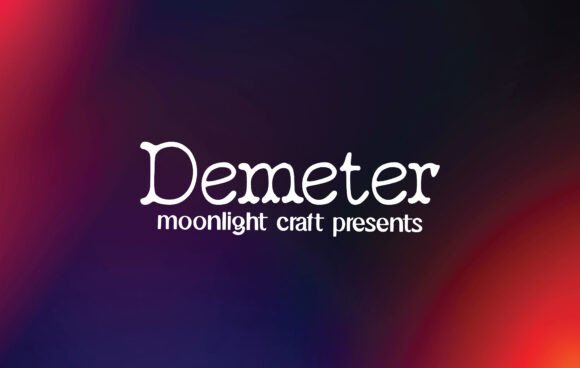
Discover the Elegance of Demeter Font: Elevate Your Designs with this Stunning Typeface
Are you a designer or crafter looking for a font that can take your creative projects to the next level? Look no further than the Demeter Font. This lovely and beautiful font is designed to help you create stunning visual content that captures the attention of your audience. With its elegant and sophisticated design, Demeter Font is the perfect choice for creating eye-catching logos, branding, and quotes that leave a lasting impression.
The Characteristics of Demeter Font
Demeter Font is a carefully crafted typeface that boasts a range of characteristics that make it ideal for creative projects. Its elegant lines, precise curves, and balanced proportions make it a joy to use for a wide range of design applications. Whether you’re creating a logo, a brochure, or a social media graphic, Demeter Font is sure to impress.
One of the standout features of Demeter Font is its versatility. It can be used for both digital and print projects, and its clear and legible design makes it perfect for body text as well as headings. Additionally, Demeter Font comes in a range of weights and styles, allowing you to tailor your design to suit your needs.
Why Choose Demeter Font?
So why should you choose Demeter Font for your next design project? Here are just a few reasons why this font stands out from the crowd:
- Elegant and sophisticated design: Demeter Font has a timeless elegance that will elevate your designs and give them a professional finish.
- Versatile: Use Demeter Font for a wide range of design applications, from logos and branding to quotes and social media graphics.
- Easy to read: Demeter Font is clear and legible, making it perfect for body text as well as headings.
- High-quality: Demeter Font is a high-quality font that is designed to produce crisp and clear results, even at small sizes.
How to Use Demeter Font in Your Designs
Using Demeter Font in your designs is easy. Here are a few tips to get you started:
- Pair it with other fonts: Demeter Font works well with a range of other fonts, so don’t be afraid to experiment with different pairings to find the one that works best for your design.
- Experiment with different weights and styles: Demeter Font comes in a range of weights and styles, so try out different variations to see which one works best for your design.
- Use it for headings and titles: Demeter Font is perfect for headings and titles, where its elegant design can really shine.
In conclusion, Demeter Font is a stunning typeface that is sure to elevate your designs and take your creative projects to the next level. With its elegant and sophisticated design, versatility, and ease of use, Demeter Font is the perfect choice for designers and crafters who want to create eye-catching logos, branding, and quotes that leave a lasting impression.
- What is Demeter Font?: Demeter Font is a lovely and beautiful font designed for creative projects, including logos, branding, and quotes.
- Is Demeter Font easy to use?: Yes, Demeter Font is easy to use and comes in a range of weights and styles to suit your design needs.